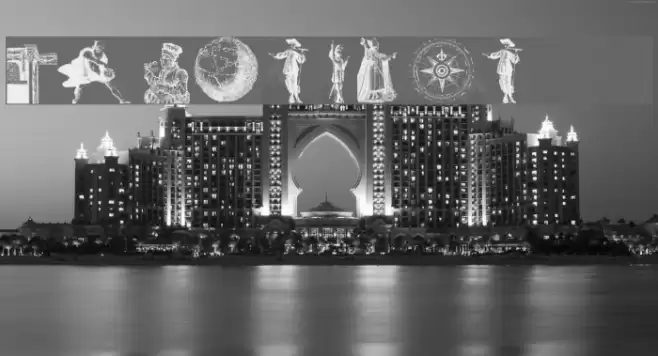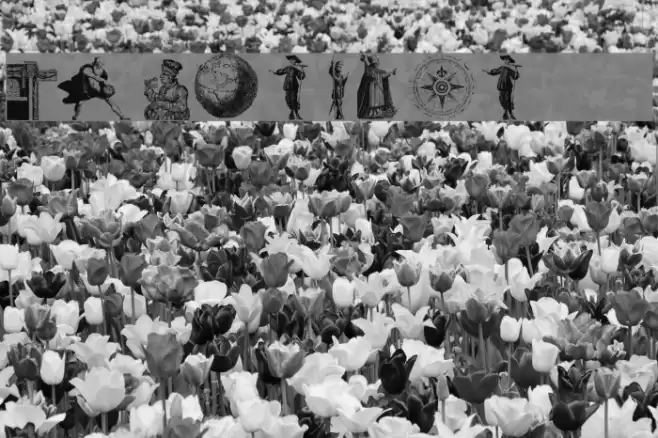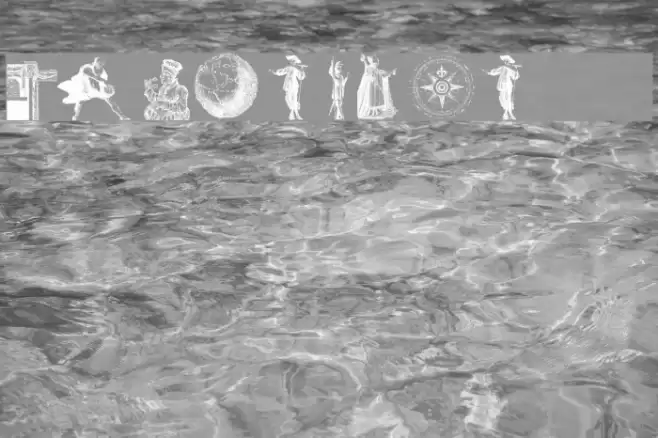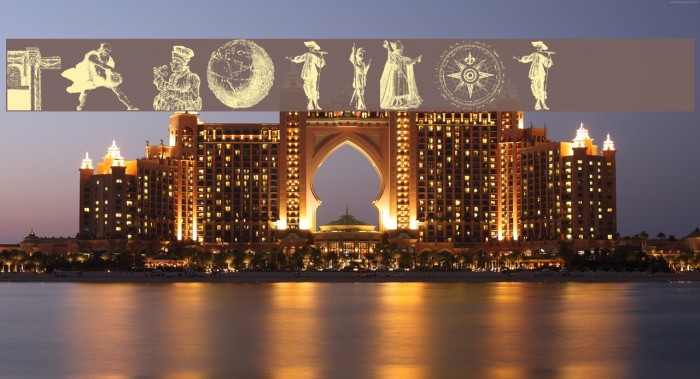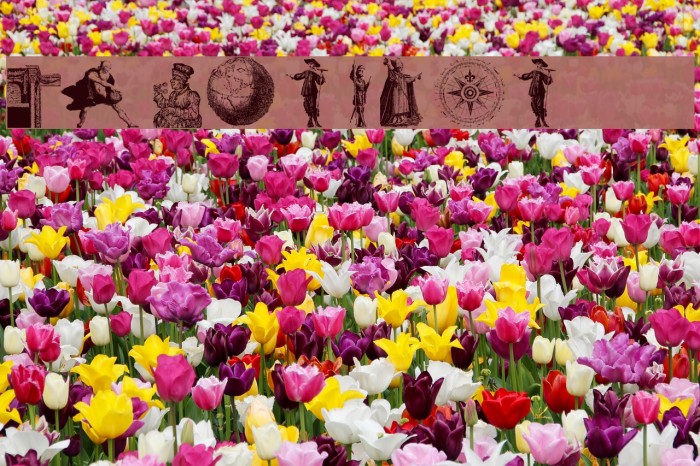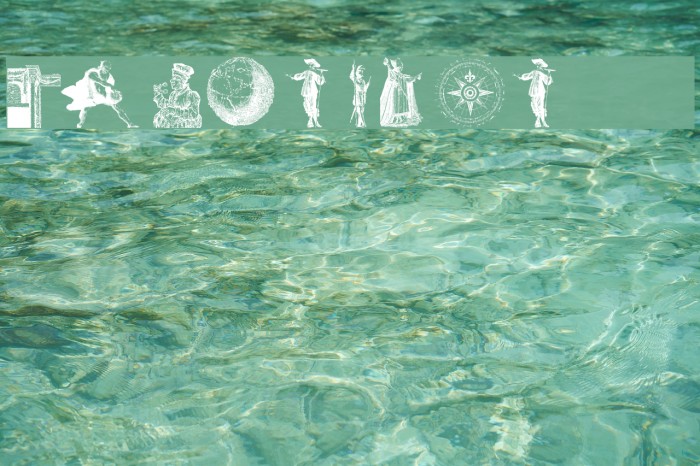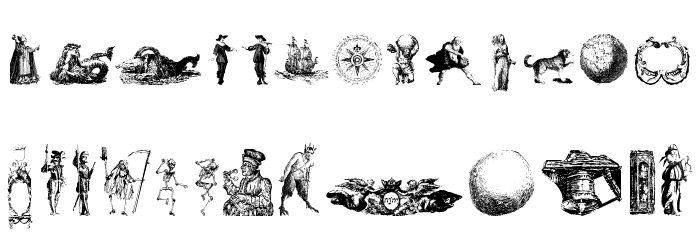
Title page 1600 Font
Title page 1600 Description
A collection of highly detailed, vintage-style engravings and illustrations depicting animals, people, mythological creatures, architectural elements, and decorative motifs, reminiscent of 16th–17th century book title pages.
Ornate, historical engravings with a classical, antique feel from Dingbats fonts.
- Proposed Projects: Book covers, historical posters, invitations, certificates, branding for luxury or heritage products, theatrical programs.
- Overall Style: Vintage, Decorative, Classical
- Use Case: Decorative elements, Logos, Headlines, Thematic dividers